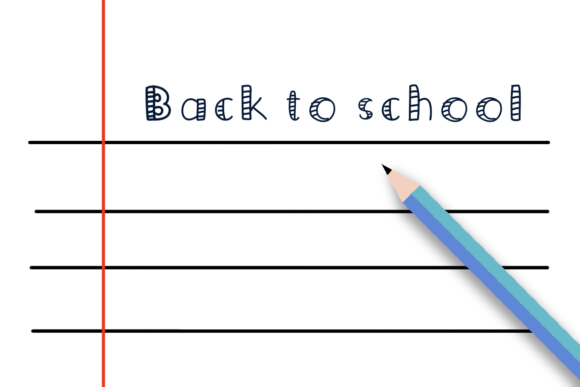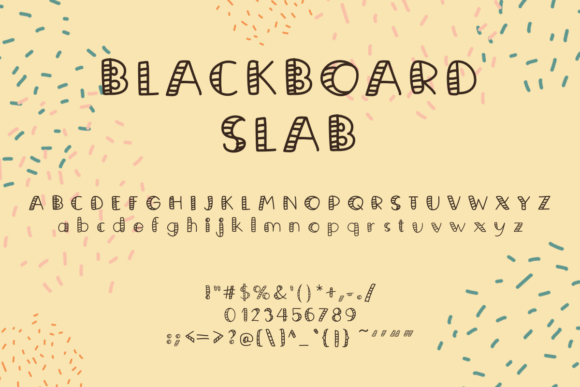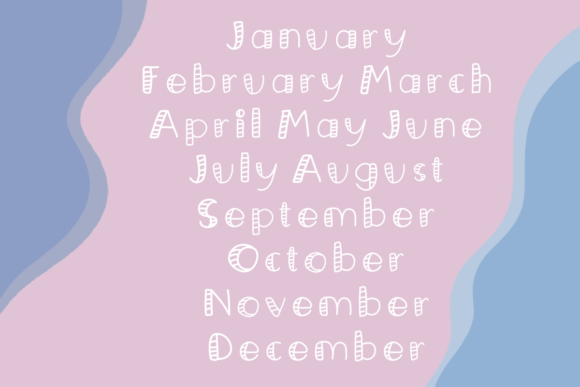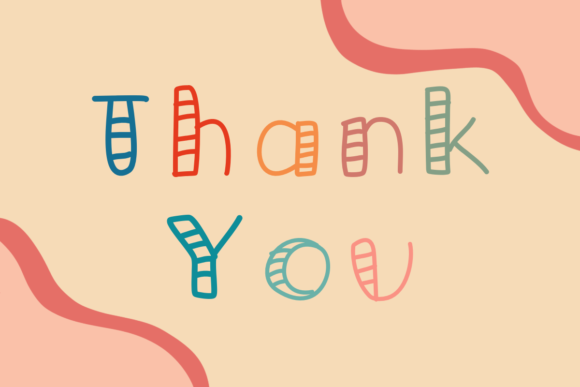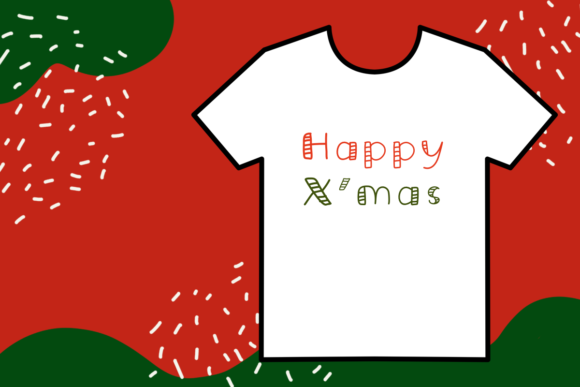
Introducing Blackboard Slab Font: The Ultimate Display Font for Fun and Playful Designs
Are you tired of using the same old fonts for your designs? Look no further than the Blackboard Slab Font! This cool, funny, cute, playful, and useful display font is perfect for adding a touch of whimsy to your designs. Whether you’re a designer, crafter, or DIY enthusiast, Blackboard Slab Font is a must-have in your font collection.
What Makes Blackboard Slab Font So Special?
Blackboard Slab Font is a unique and eye-catching font that’s perfect for designs that require a playful and fun touch. Its chunky and bold letters make it highly legible, even at small sizes, making it ideal for use on a variety of materials such as t-shirts, logos, advertisements, clothing, and more.
One of the standout features of Blackboard Slab Font is its versatility. It can be used for a wide range of designs, from children’s themed designs to more adult-oriented projects. When paired with bright colors, this font really comes alive and adds a level of excitement to any design.
Perfect for Children-Themed Designs
Blackboard Slab Font is especially well-suited for children’s themed designs, such as:
- Kids’ party invitations
- Children’s book titles
- Kids’ clothing and accessories
- Playful posters and flyers
When combined with bright and bold colors, Blackboard Slab Font creates a fun and engaging visual that’s sure to capture the attention of kids and adults alike.
Why Designers and Crafters Love Blackboard Slab Font
Designers and crafters love Blackboard Slab Font for its:
- Unique and playful style
- High legibility, even at small sizes
- Versatility – perfect for a wide range of designs
Whether you’re creating professional designs or working on personal projects, Blackboard Slab Font is a great addition to your font collection.
Tips for Using Blackboard Slab Font
Here are some tips for getting the most out of Blackboard Slab Font:
- Use it for headlines and titles – it’s perfect for adding a playful touch to your designs
- Pair it with bright colors – this font really comes alive when combined with bold and bright colors
- Experiment with different sizes – Blackboard Slab Font is highly legible, even at small sizes, making it perfect for use on a variety of materials
- Use it for kids’ themed designs – this font is especially well-suited for children’s themed designs, such as kids’ party invitations and children’s book titles
| Font Name | Blackboard Slab Font |
| Author | AtelierJaru |
Blackboard Slab Font is a unique and versatile display font that’s perfect for designers, crafters, and DIY enthusiasts. Its playful and fun style makes it ideal for a wide range of designs, from children’s themed designs to more adult-oriented projects. With its high legibility, ease of use, and versatility, Blackboard Slab Font is a must-have in any font collection.